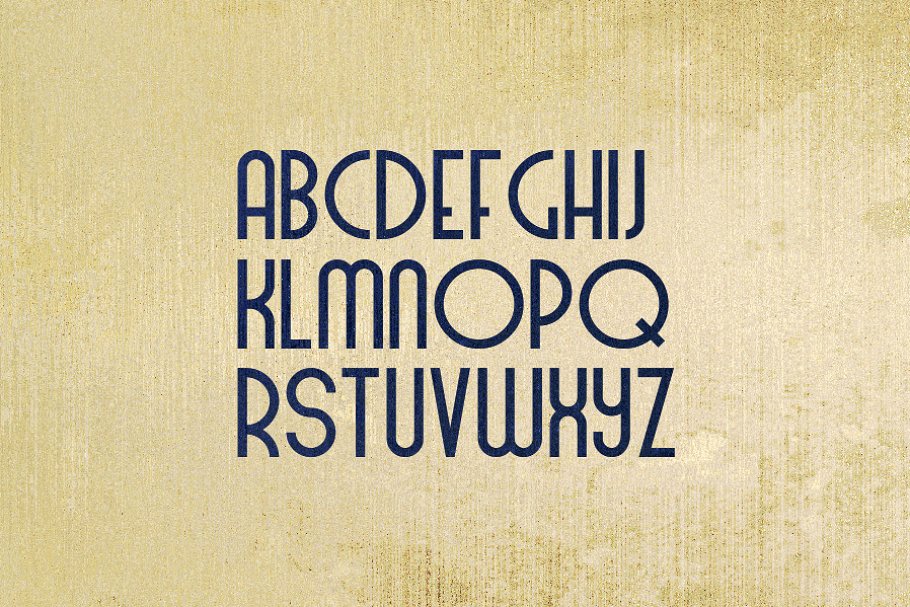
Are you tired of using the same boring fonts for your movie subtitles? Look no further! Introducing the Ironclad Typeface, the best font for movie subtitles in the market. This Art Deco font family, created by the talented Mehmet Tugcu, comes in three weights and includes multilingual uppercase letters, numbers, and punctuation, making it versatile for all your subtitle needs.
But Ironclad is not just any font. Its sleek and modern design is sure to captivate your audience and elevate the overall aesthetic of your movie. Whether you're working on a Hollywood blockbuster or an indie film, Ironclad will take your subtitles to the next level and leave your viewers in awe.